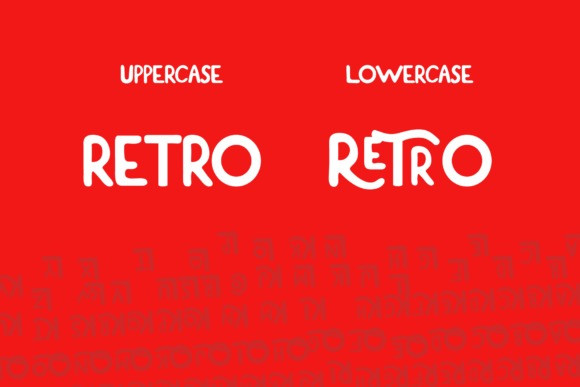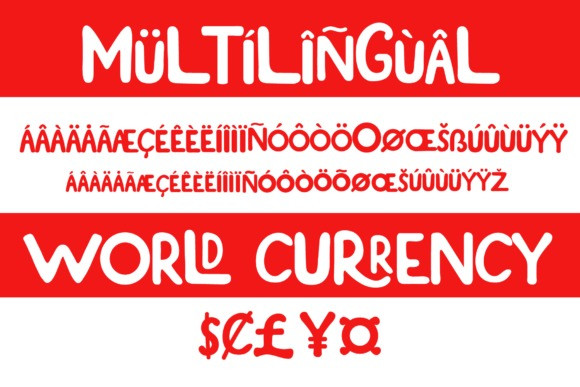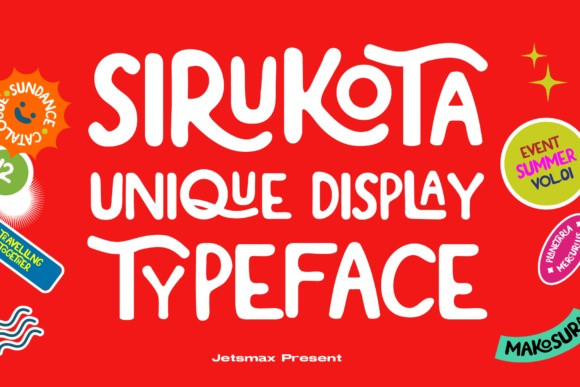
Sirukota Display Font
Sirukota is a quirky and unique display typeface with a lively theme. With a couple of special characters, this font will give any of your projects a heart and soul. It is PUA encoded and compatible with tools such as Adobe Illustrator, Photoshop, even Microsoft Word.